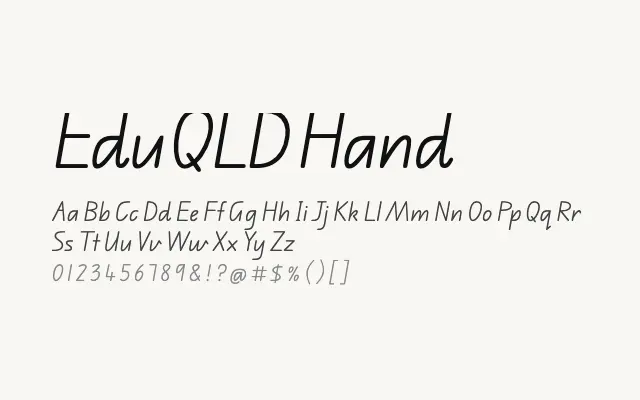
Edu QLD Hand
A more developed Queensland handwriting script with natural flow and broad language support including Vietnamese.
Edu QLD Hand builds on the beginner Queensland style by introducing exit strokes and a slightly more fluid rhythm that anticipates progression towards joined writing. Its inclusion of Vietnamese in addition to Latin and Latin Extended character sets makes it one of the most linguistically inclusive fonts in the Edu family. Ideal for Queensland classrooms with diverse student populations, as well as general educational publishing.
Reflects the Queensland handwriting style at a more developed stage, with letterforms that include exit strokes and a natural, informal handwritten rhythm. Broader language support including Vietnamese marks it out among the Edu family.